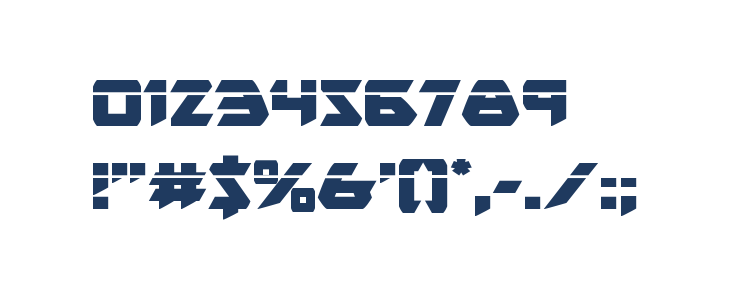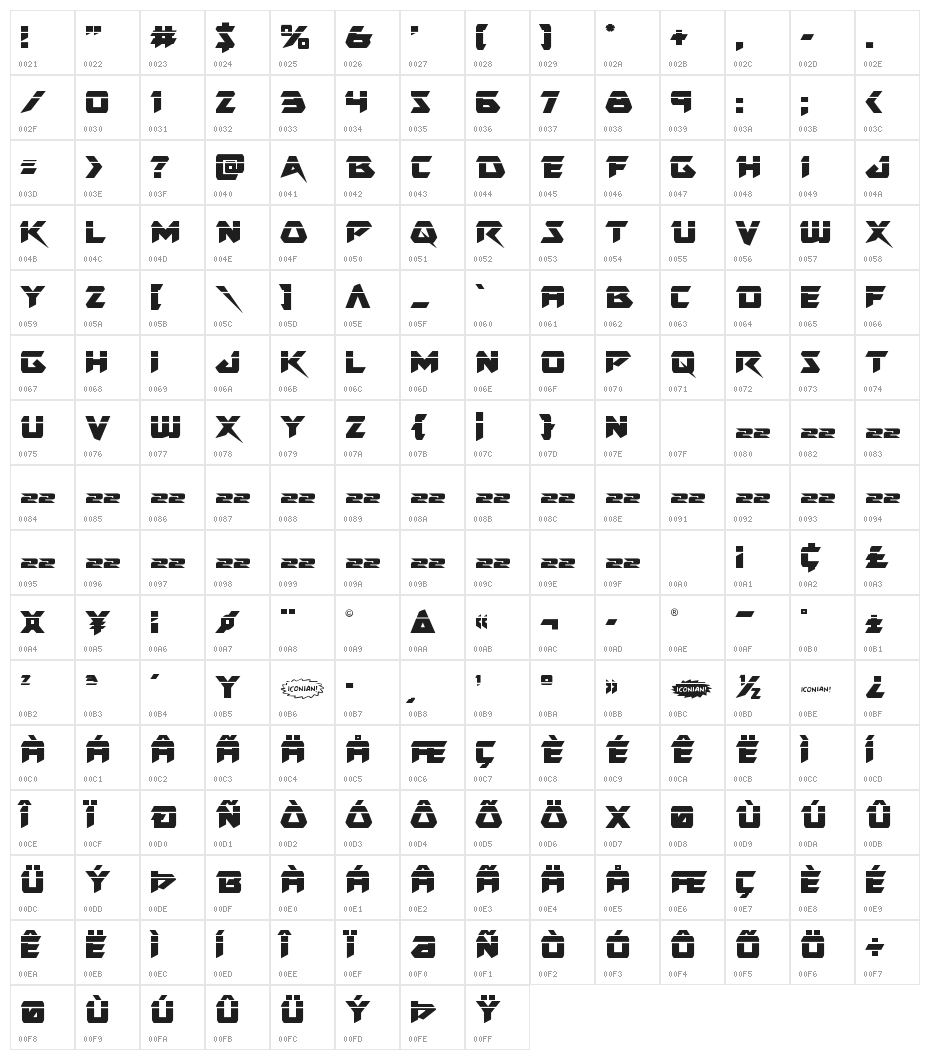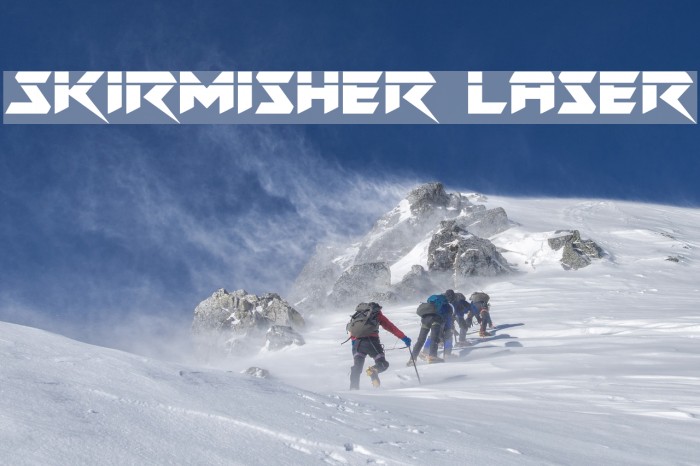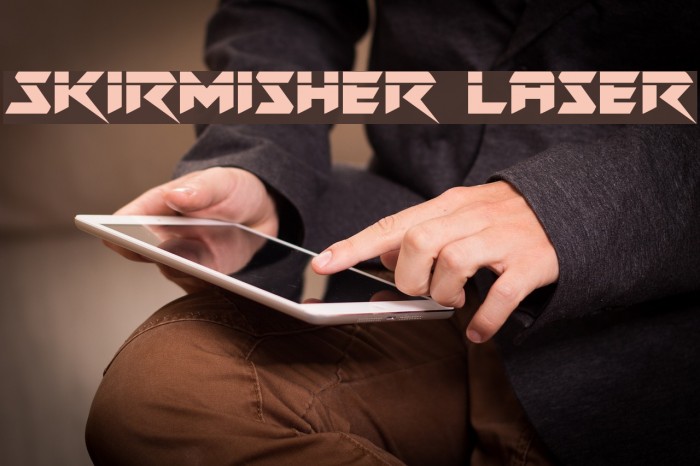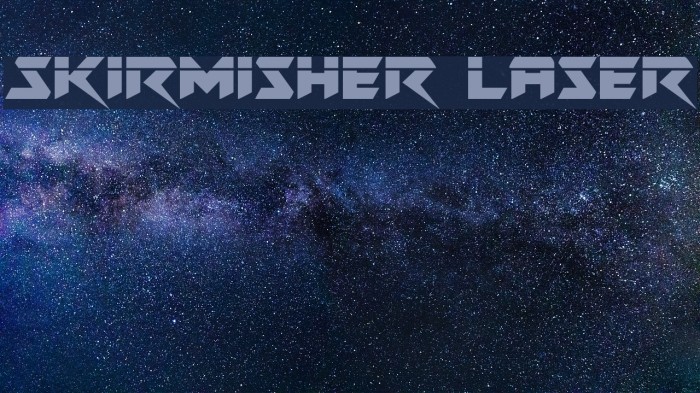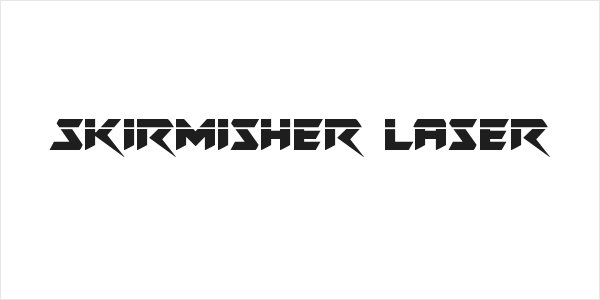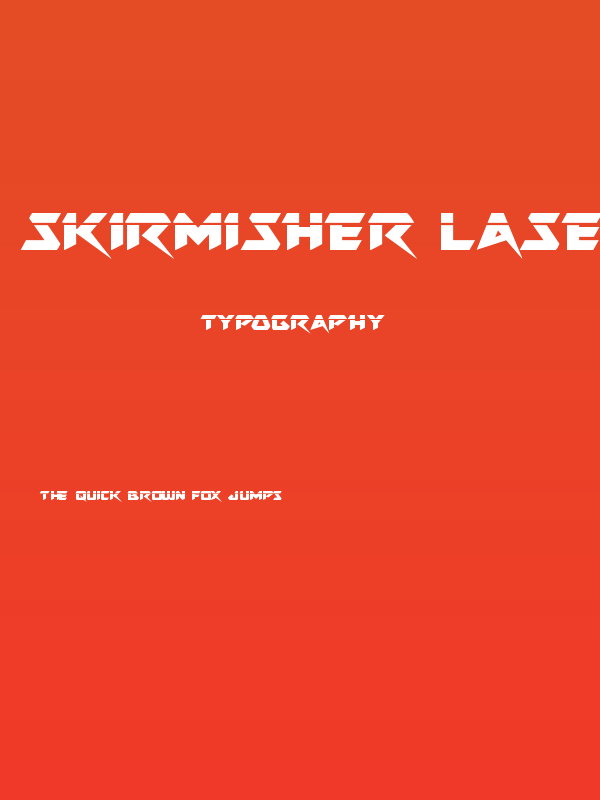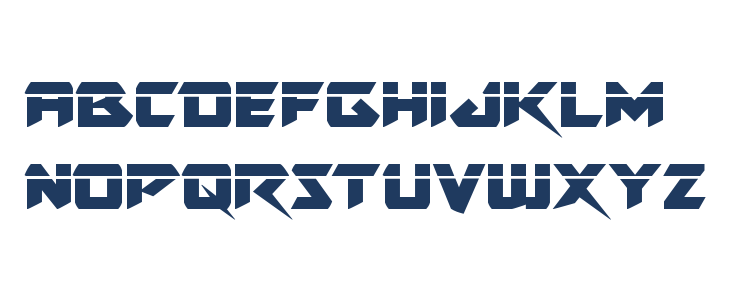
Skirmisher Laser Font
Skirmisher Laser Description
This font features a bold, futuristic design with sharp angles and geometric shapes, giving it a distinctly modern and edgy appearance. The characters are constructed with a combination of straight lines and pointed edges, creating a dynamic and aggressive look. The uppercase and lowercase letters maintain a consistent style, with the uppercase being slightly more pronounced. Numbers and special characters follow the same angular theme, ensuring uniformity across all glyphs. The font's boldness and unique style make it stand out, making it ideal for projects that require a strong visual impact.
| Proposed Projects | Ideal for sci-fi themed designs, video game titles, movie posters, and branding that requires a modern, edgy look. |